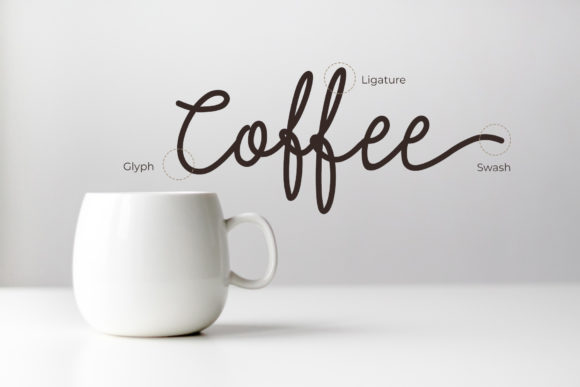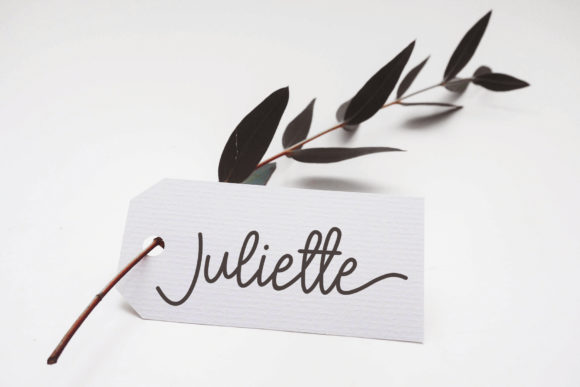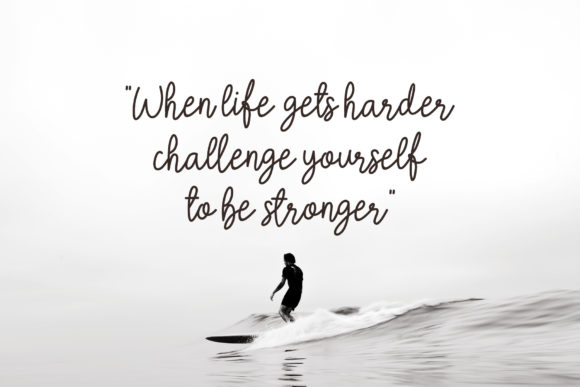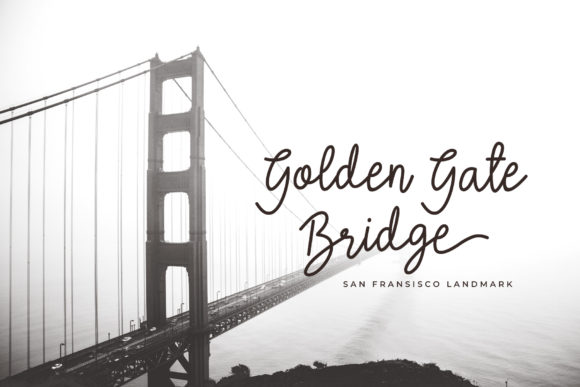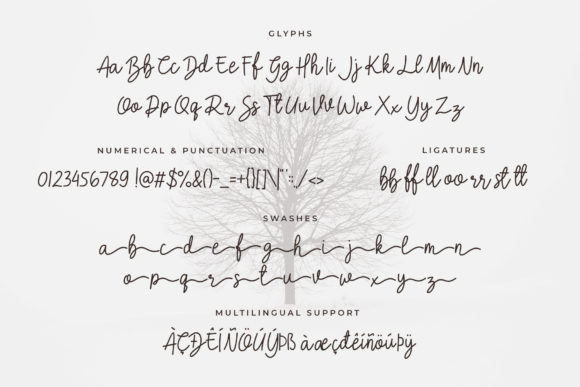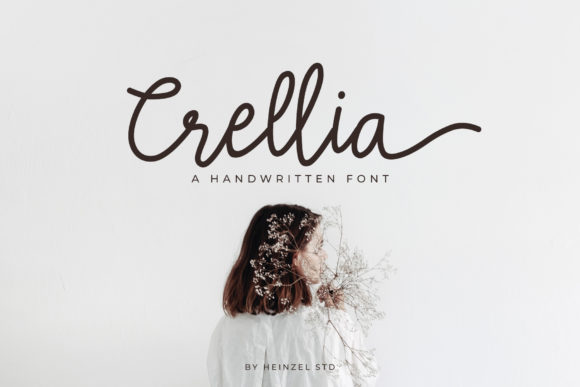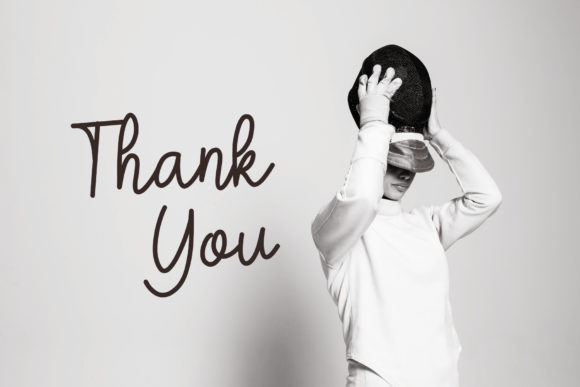
HomePersonal Use FreeCrellia Script Personal Use Free Crellia Script FacebookTwitterPinterestWhatsApp 1 of 7 About Crellia Script Font Crellia is a modern and charming script with a unique style. It will add a sophisticated feel to any design project! DOWNLOAD NOW People also explored Dealova Font Clove Mandala Monogram Font Fuma Twilight Font Monogram Font Enjoy Honey Font Inspire Impact Font Spring Leaves Font Almonds Script Font Sweet Panda Font 156 0 TagsCrellia Script Font Previous articleSileightyNext articleClarisa Script LEAVE A REPLY Cancel reply Comment: Please enter your comment! Name:* Please enter your name here Email:* You have entered an incorrect email address! Please enter your email address here Website: Save my name, email, and website in this browser for the next time I comment. Personal Use Free Pumpkins Candles Personal Use Free Read more about this font Snaily Personal Use Free Read more about this font Banana Valentine Personal Use Free Read more about this font Mandarins Personal Use Free Read more about this font BLOG Best Fonts for YouTube Videos: Make Your Thumbnails Stand Out Best Fonts for YouTube Videos: Make Your Thumbnails Stand Out Choosing the right font can make a massive difference in how your YouTube videos perform.... Best Fonts for T-Shirt Design – Top 2025 Picks Transform Your Website: Elevate Your Typography with 7 Best Web Font Generators Using Fonts in Digital Marketing: Tips to Strengthen Your Brand Identity